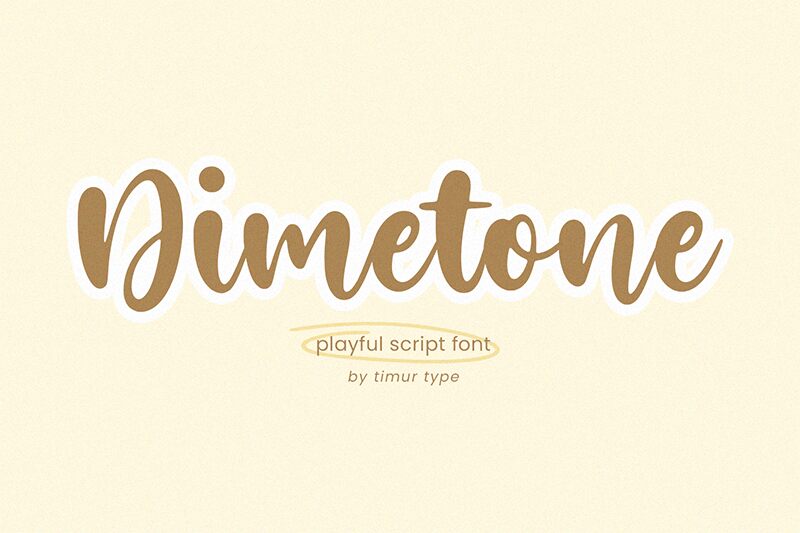
Dimetone
Dimetone, a creation by Timur Type, stands out with its bold and fluid handwritten style. This font captures the essence of personal touch and warmth, bringing a handcrafted feel to any project it graces. With each stroke exuding confidence and dynamism, Dimetone offers an aesthetic that is both striking and approachable.
The bold weight of Dimetone ensures that it makes a statement while maintaining legibility, making it an excellent choice for headlines, branding, or advertising where a human touch is desired. The elegance woven into its curves lends itself beautifully to creative endeavors such as invitations, editorial design, and boutique product packaging.
Embracing the artistry of handwriting with contemporary flair, Dimetone is perfectly suited to inject character into your designs while keeping them grounded in authenticity. Its versatility across various mediums underscores its potential to be a go-to font for designers seeking to add personality to their visual narratives.